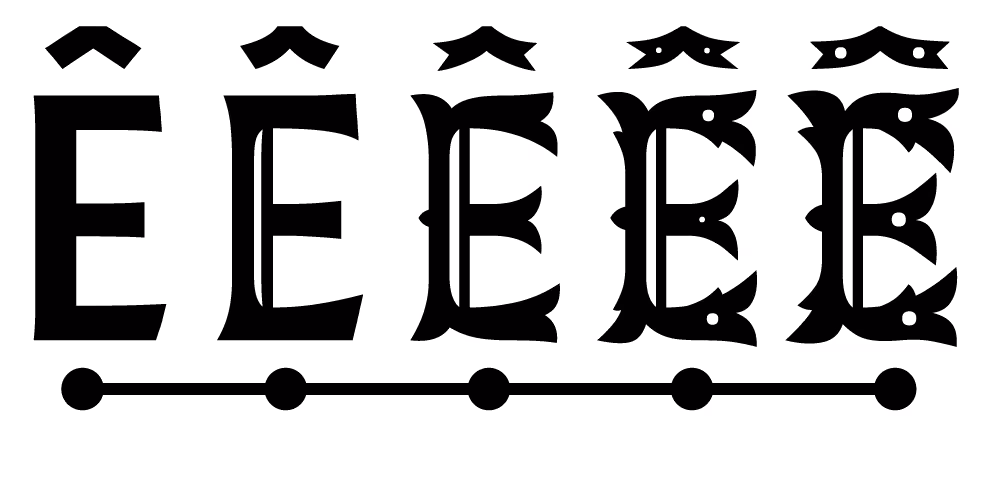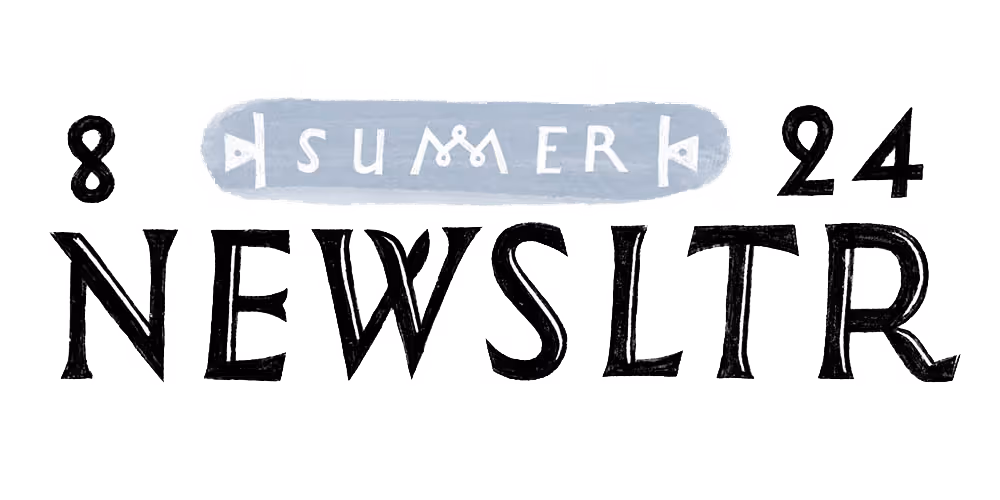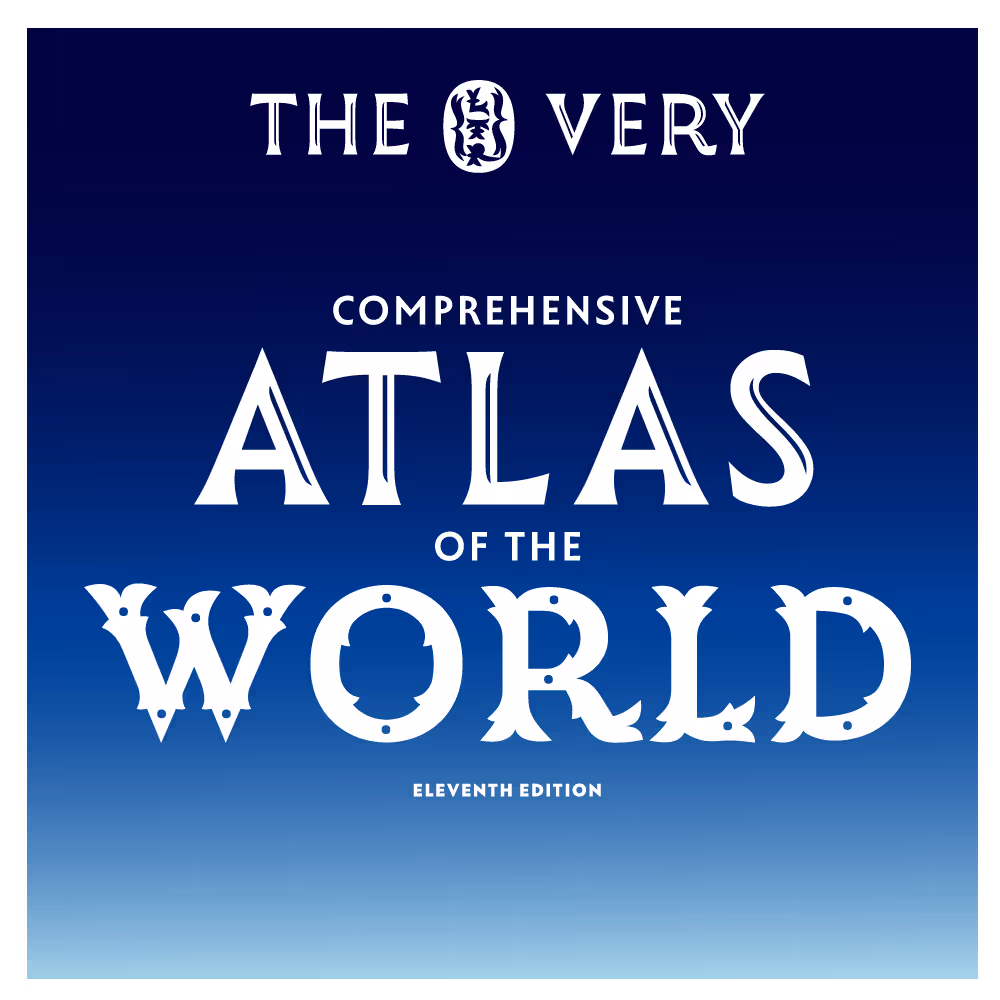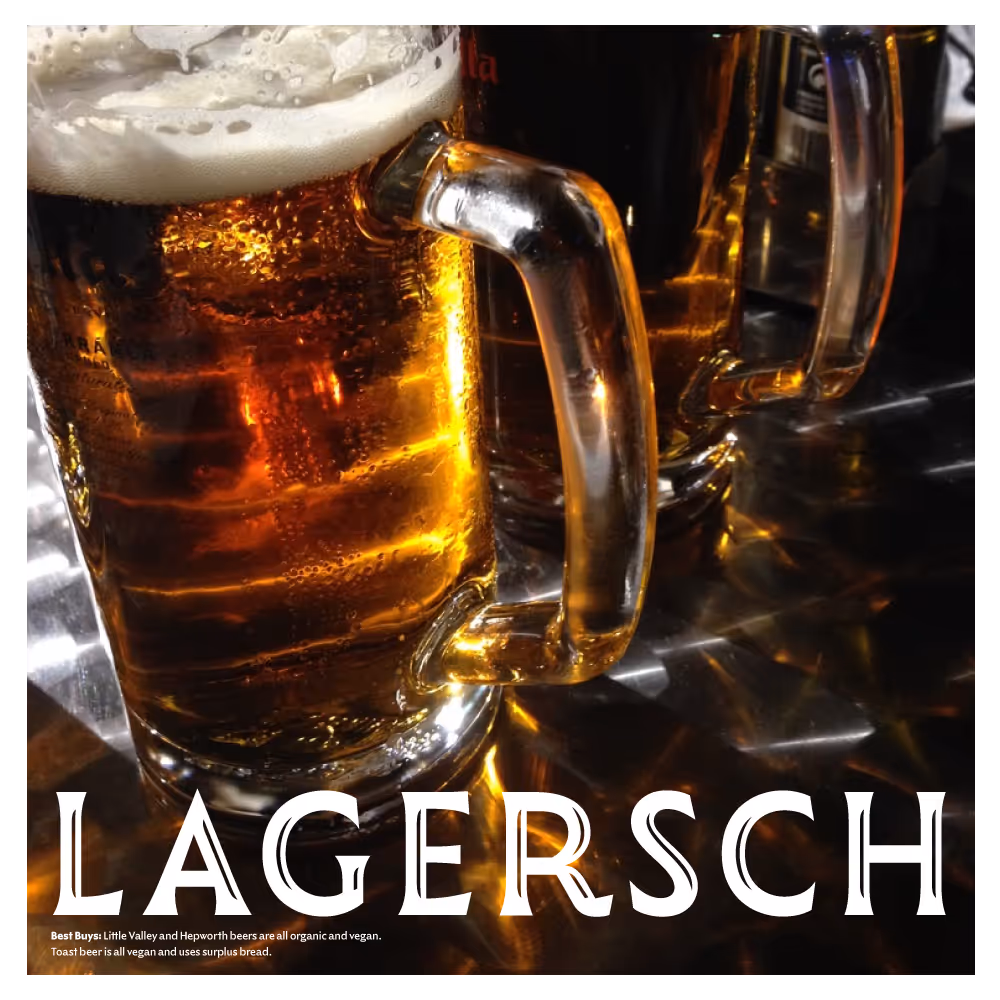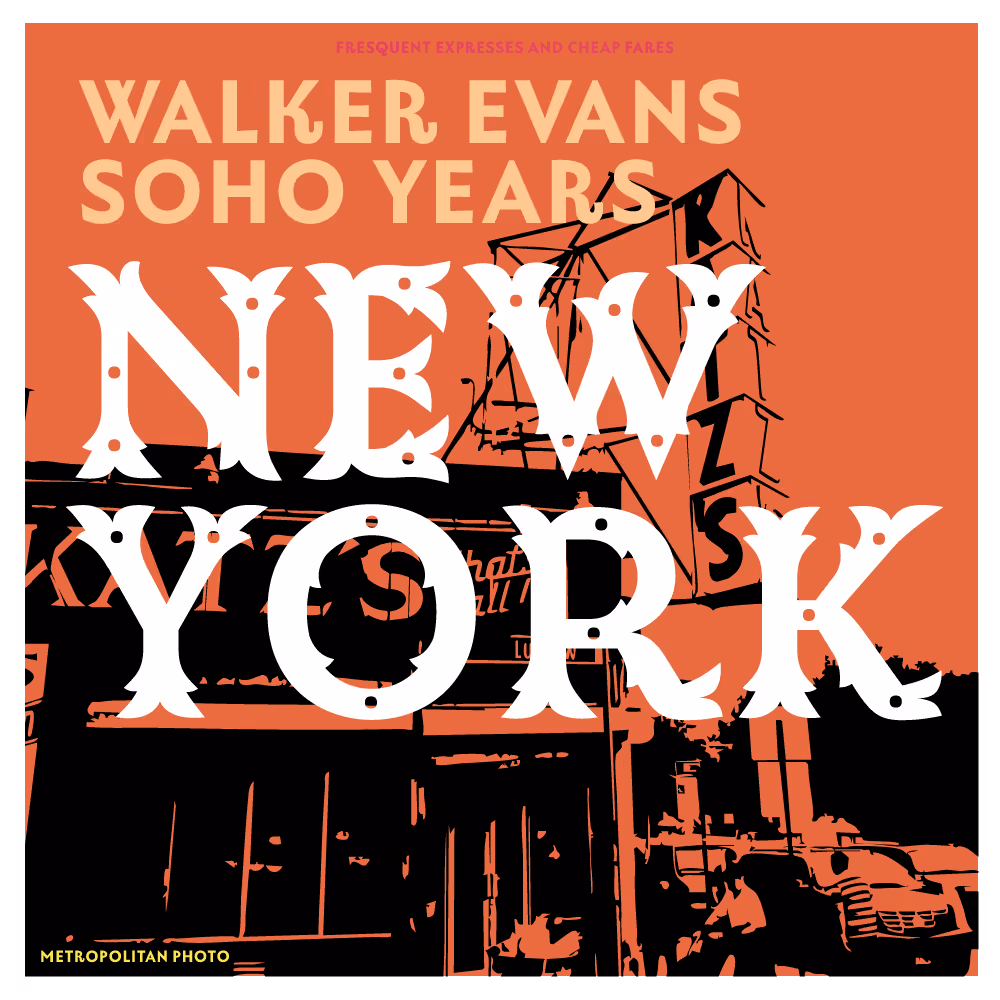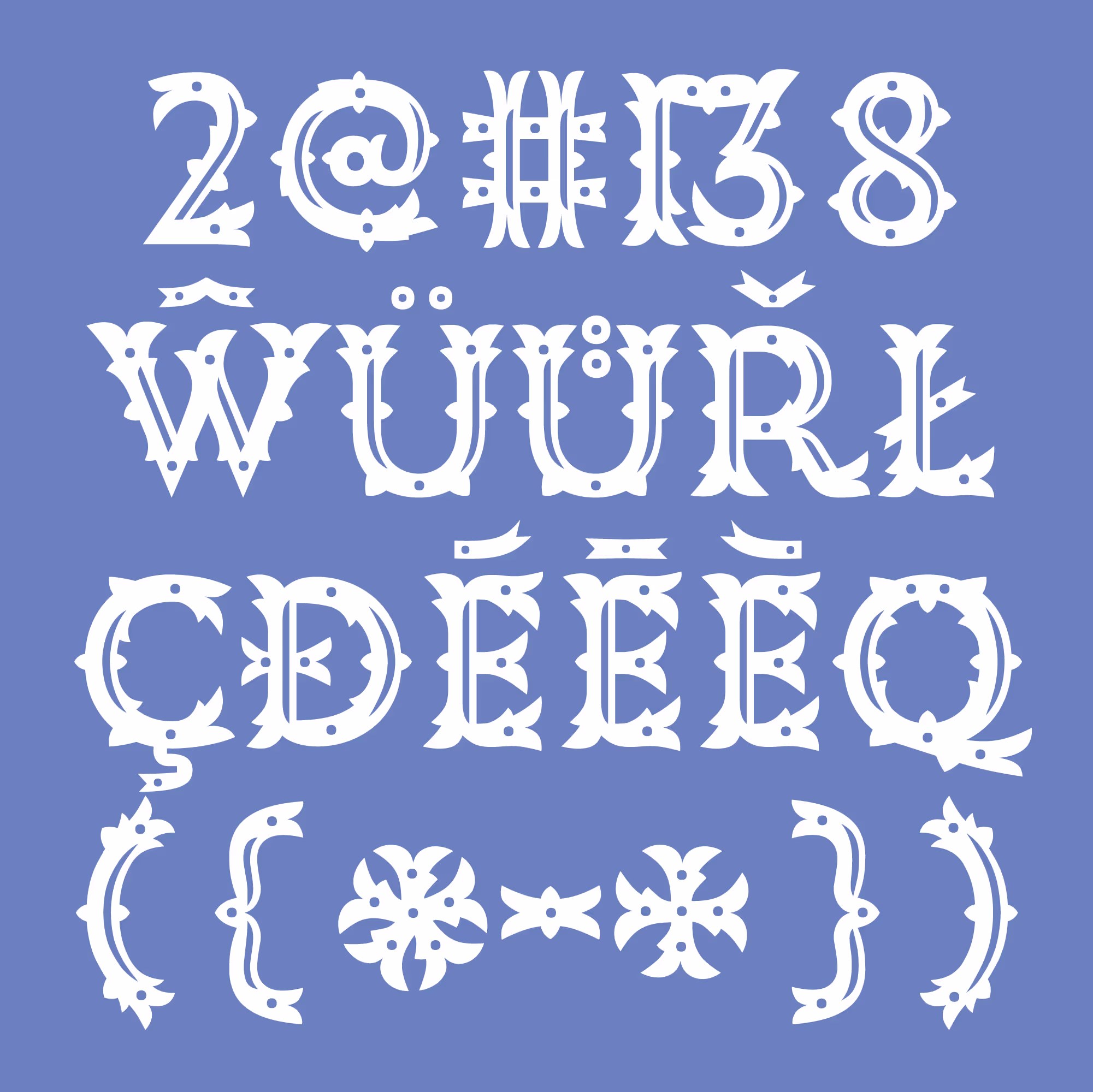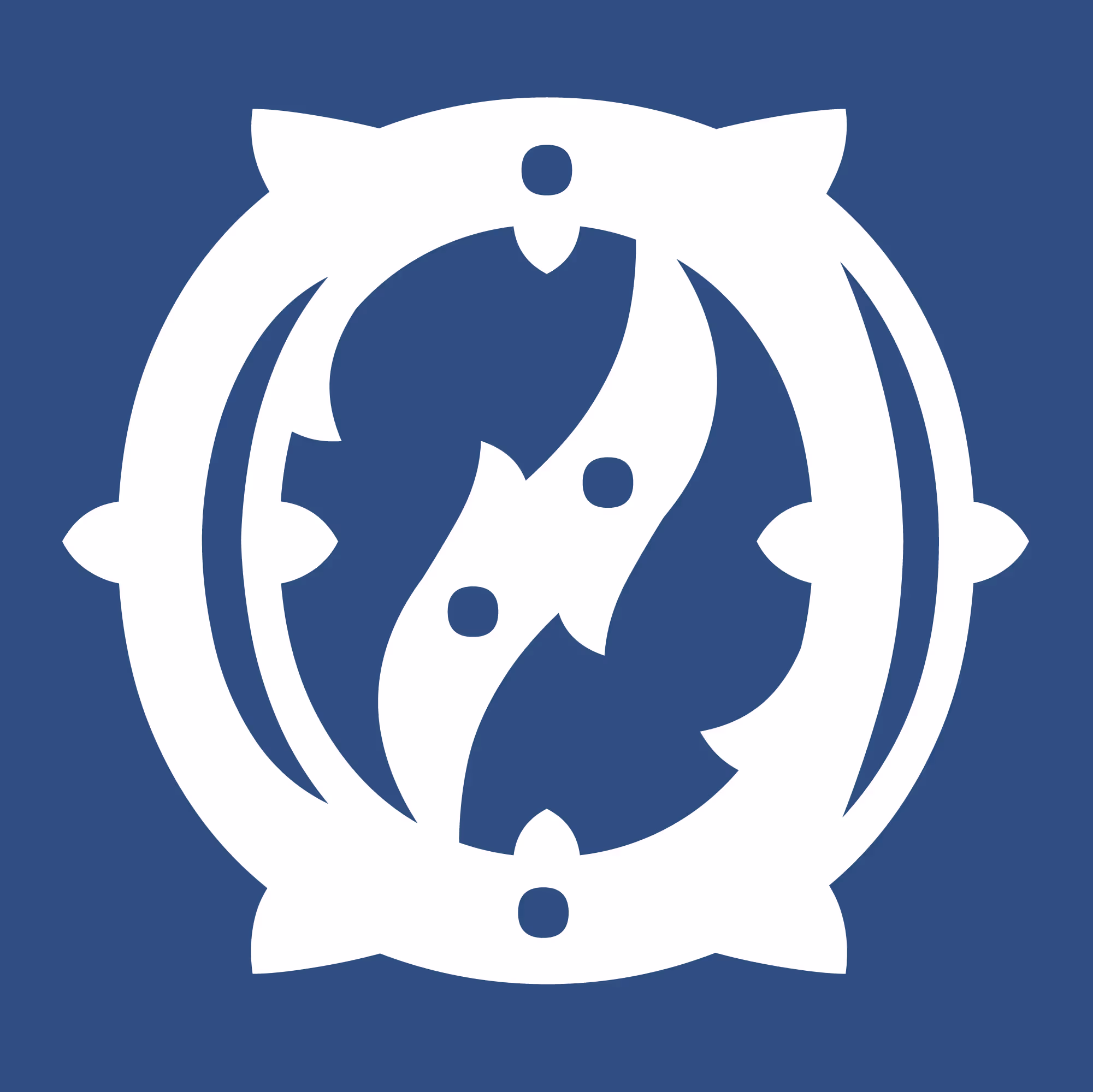
Every shopkeeper knows that an eye-catching masterpiece in the window will draw the readers into the door. And even when after browsing the exciting wares, the eye settles on a more modest product, some of the glamour will have attached itself to the purchase. This typeface may very well be the thing.
Bifurcating the terminals puts a pleasing tension on the stem. Thorns, more incisions and a sprinkling of pips add grit and texture. LTR Very Bauble can present as a peaky, beaky sans, a sharp serif, and all varying degrees of baublicity in between. All this on a single, smooth, easy to animate, variable font axis named Serif.
Vacuous frippery! Indeed I will not talk about legibility, functionality, opening the counters, or bore you with Gaussian blurred text. I do question whether this whole typeface is really a Tuscan. In the excellent Rob Roy Kelly American Wood Type Collection (link) David Shields shows the term Tuscan was actually used for a wide range of styles. Not just designs with bifurcated stems. You will find that one of the styles in Very Bauble is named Tuscan. Not to make any historic claims, but in recognition of all the typefaces with lovely shapes that somehow ended up with awkward names.
LTR Very Bauble started as a skitchy sketchy headline for the newsletter. That was time well spent, though I had no idea that the drawing would grow to this typeface. The Bauble, as it is affectionately known in the LTR Drawing Room, is controlled by five separate designs. Each appears at its designated time, like frames in a film, so that the animation comes to life.
The stations along the Serif axis. Note how the different stylistic features do not appear all at once, but are revealed when needed.
A decent characterset, this Bauble. And the price has taken that into account. Bauble contains uppercase, numerals, some currencies, punctuation and dashes and quite a few diacritics. A lovely ampersand and a fantastic asterisk, a new asterism. Numerals fit for monuments. Three stylistic sets give you some control over the details: the standard (with everything on), a solid (no ornaments), lined, pipped. Not all glyphs have pips or thorns or lines, but they're included in the stylistic sets. Try the testers here to see if the words will work. Try the Serif slider!
The glyphs in Very Bauble Variable are very similar to a theatre stage: there are parts and props waiting for the right time to appear. When you convert one of the Baubles to outlines, all those items are revealed. Suppose you want to cut the shapes from vinyl that can be an issue. Use Illustrator's Pathfinder to unite the outlines and everything will be cleared away. Alternatively, you can use one of the non-variable OpenTypes that do not need the extra props. The variable font contains these items to make the animations work.
Left the outlined W with all the moving parts still visible. Right the outlines have been united: everything is clean.